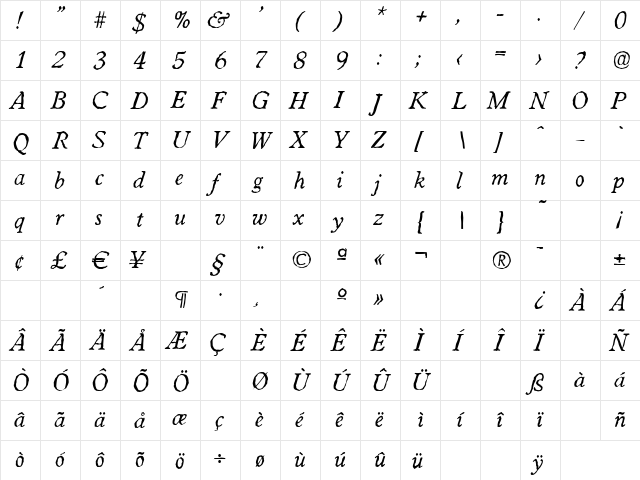
WorcesterAntique Italic
Design Context for WorcesterAntique Typeface
WorcesterAntique wears its vintage influences proudly, with letterforms that recall mid-century signage, classic packaging, and nostalgia-driven design. The slanted form adds forward momentum and visual energy.
Font Pairing: Combine WorcesterAntique with a simple slab or neutral sans — period-accurate companions reinforce the vintage feel without competing for attention.
Pro Tip: Use WorcesterAntique for headlines and pull quotes rather than body copy — its personality is best appreciated in short, focused bursts.